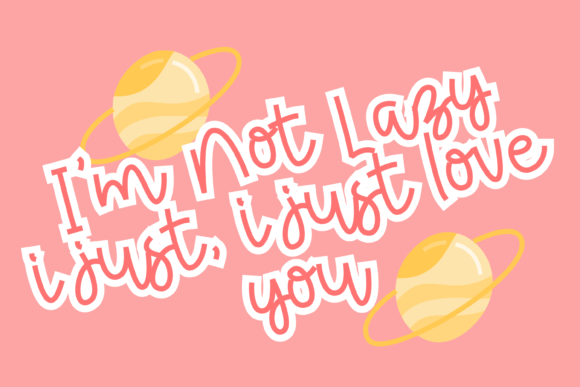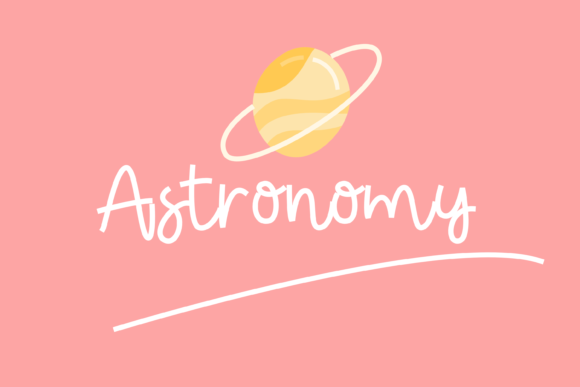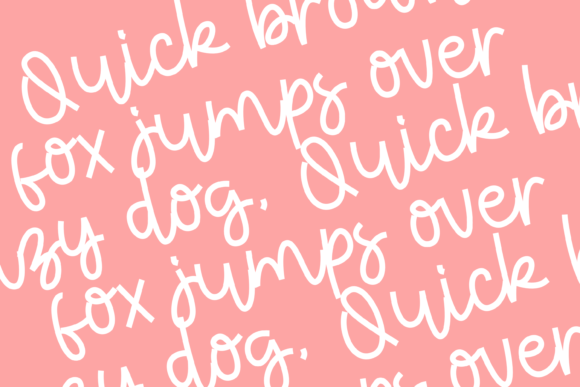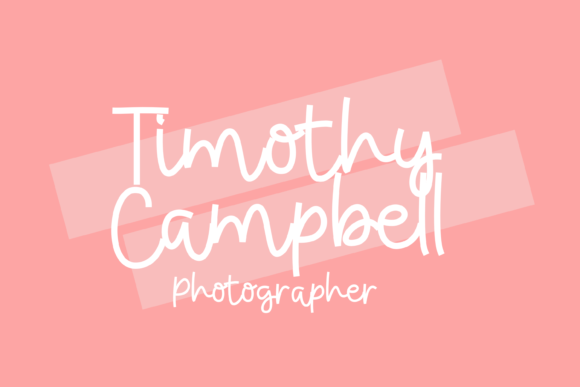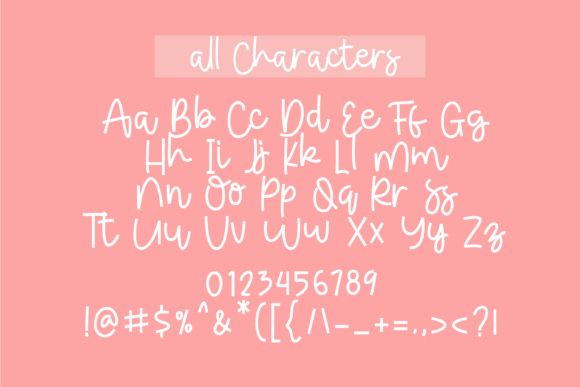
Geometric Spaceship Font
About Geometric Spaceship Font
Geometric Spaceship is a cute, quirky, and whimsical script font that brings a sense of joy and authenticity to your designs. With its unique geometric-inspired letterforms, this font adds a playful and creative touch to a wide range of creations.
The cuteness and quirkiness of Geometric Spaceship make it stand out from the crowd. The font’s unconventional and whimsical style captures attention and evokes a sense of lightheartedness. It adds a touch of fun and playfulness to your designs, making them visually appealing and memorable.
Geometric Spaceship embodies joy and authenticity, creating a positive and uplifting atmosphere. The font’s unique letterforms and creative flair exude a sense of originality and individuality. It brings a refreshing and energetic vibe to your designs, making them stand out with a touch of uniqueness.
The versatility of Geometric Spaceship allows it to be used in a wide range of creations. Whether you’re designing greeting cards, social media graphics, children’s books, or any other project, this font adds a delightful and whimsical element that resonates with viewers of all ages. It brings a sense of charm and creativity to your designs, capturing the imagination.
By incorporating Geometric Spaceship into your designs, you embrace its cute, quirky, and whimsical nature. The font’s joy and authenticity add a genuine and heartfelt touch to your creations. It creates a connection with your audience and evokes emotions of happiness and positivity.
Geometric Spaceship is the ideal choice for those seeking a font that stands out and brings a sense of playfulness and creativity to their designs. It adds a unique and delightful touch that leaves a lasting impression. Embrace the cuteness, quirkiness, and whimsical nature of Geometric Spaceship, and let it transform your creations into joyful and authentic experiences.
In summary, Geometric Spaceship is a cute, quirky, and whimsical script font that embodies joy and authenticity. Its unique geometric-inspired letterforms add a playful and creative touch to a wide range of creations. Embrace the font’s positive and uplifting atmosphere, and let it bring a sense of charm and uniqueness to your designs, creating delightful and memorable experiences for your audience.